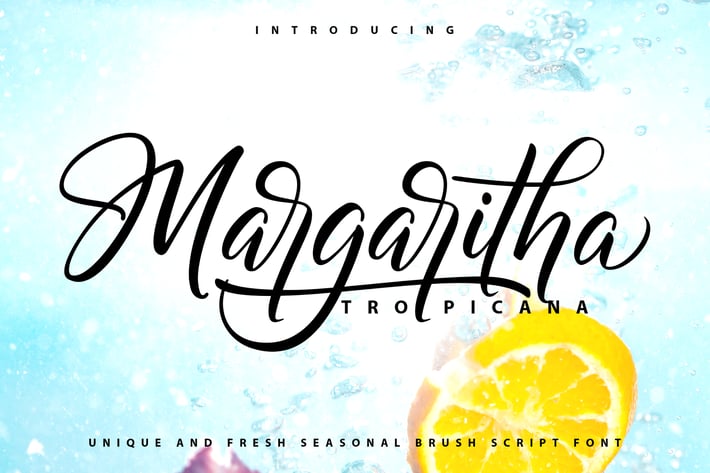
Margaritha-Tropicana | Unique Brush Script Font
Margaritha-Tropicana | Unique Brush Script Font with a calligraphy style, So beautiful on invitation like greeting cards, branding materials, business cards, quotes, posters, and more!